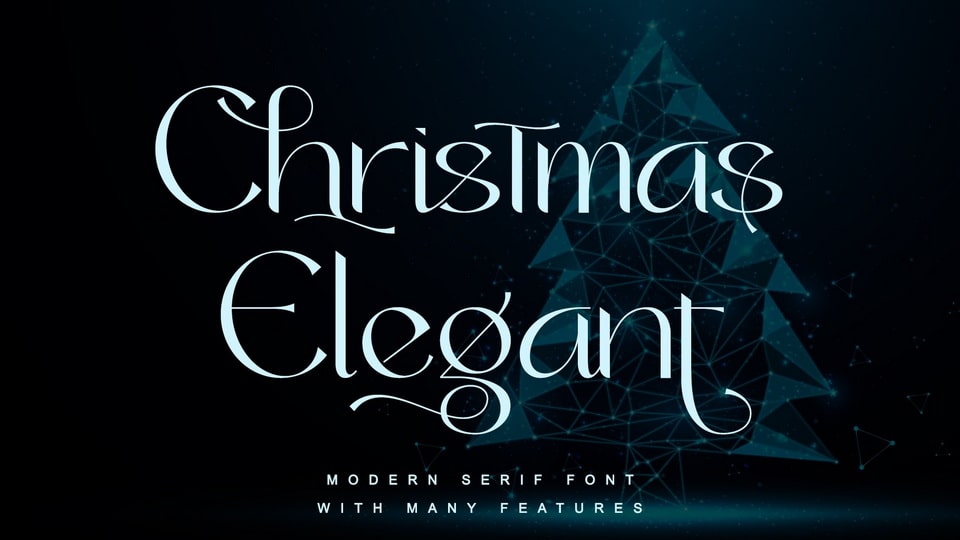
Download Christmas Elegant font, an elegant and delicate serif typeface with a unique style and modern look. Contemporary and fresh, Christmas Elegant font is perfect for any design you wish to create
Designer: Thomas Aradea